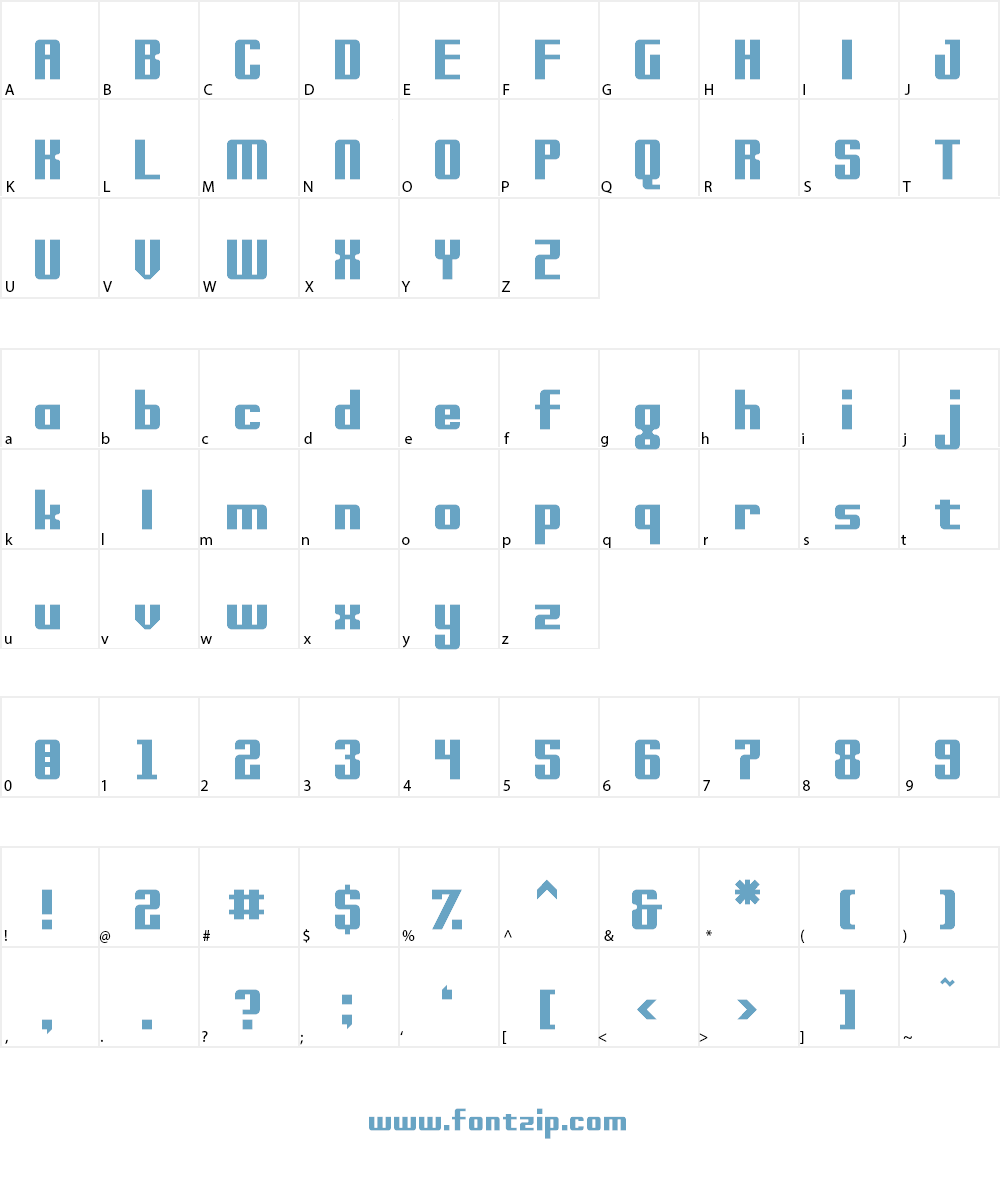
An asymmetrical boldtype I designed for a certain Role-Playing Game's rulebooks. This supports Danish, Dutch, English, Finnish, French, German, Hungarian, Icelandic, Italian, Norwegian, Portuguese, Spanish, and Swedish.